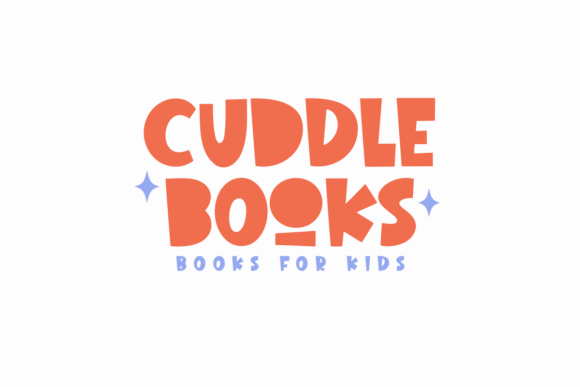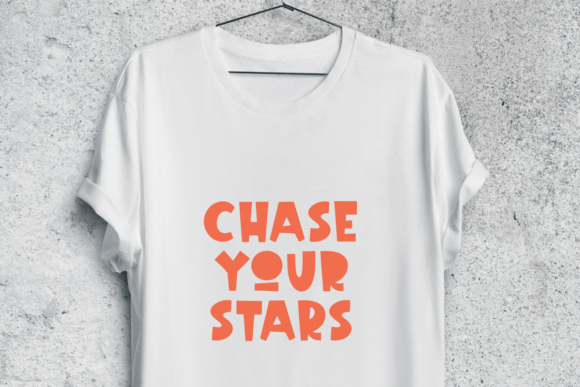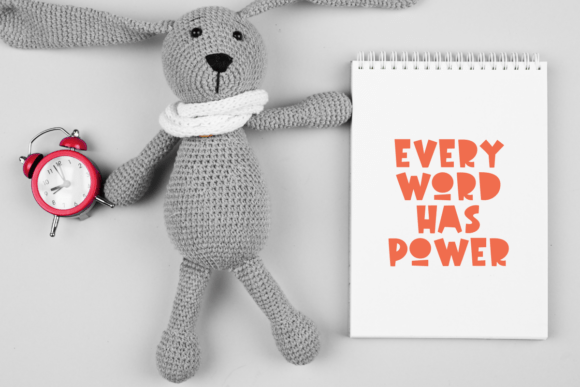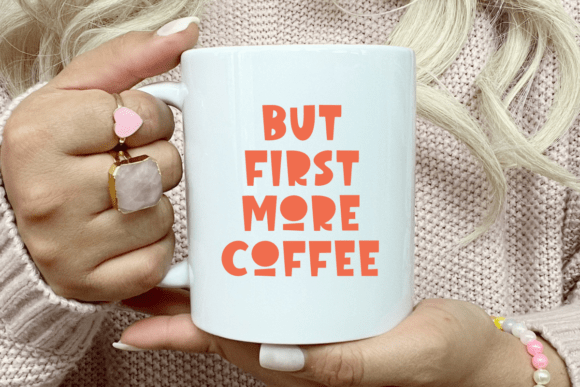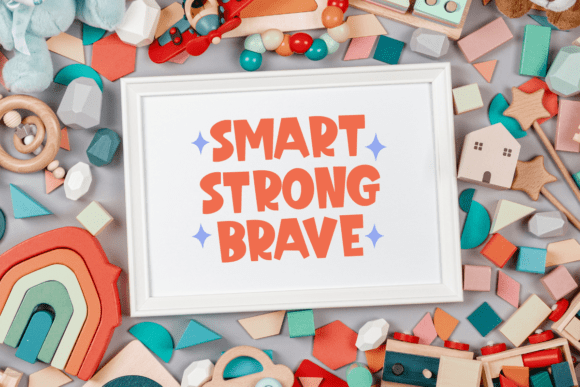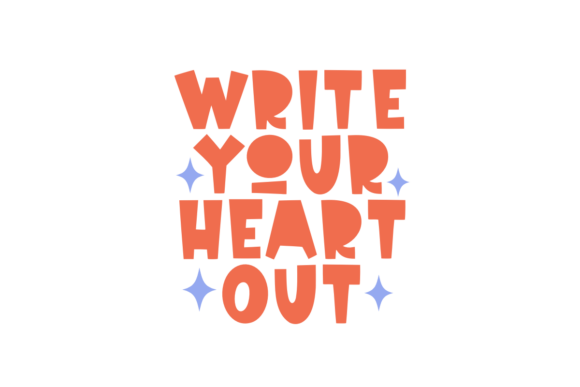
Introducing Friends School Font: The Ultimate Handmade Block Font for Creative Projects
Are you a designer, crafter, or DIY enthusiast looking for a unique and versatile font to elevate your creative projects? Look no further than Friends School Font, an extraordinarily distinct handmade block font that is sure to add a touch of quirkiness and personality to your designs. In this article, we’ll explore the features and benefits of Friends School Font, and how it can be used to amplify the charm of a wide range of creative projects.
What is Friends School Font?
Friends School Font is a handmade block font that is characterized by its distinctive and playful design. The font features a unique blend of uppercase and lowercase letters that harmoniously work together to create a visually appealing and eye-catching effect. The font’s quirkiness and versatility make it perfect for a wide range of creative projects, from statement tee-shirts and captivating headlines to custom tote bags and illustrations.
Key Features of Friends School Font
- Handmade block font: Friends School Font is a unique, handmade block font that adds a personal touch to any design.
- Quirky and versatile: The font’s quirkiness and versatility make it perfect for a wide range of creative projects.
- Uppercase and lowercase letters: The font features a unique blend of uppercase and lowercase letters that work harmoniously together.
- Perfect for designers and crafters: Friends School Font is ideal for designers, crafters, and DIY enthusiasts looking for a unique and versatile font.
Creative Projects with Friends School Font
Friends School Font is perfect for a wide range of creative projects, including:
- Statement tee-shirts: Add a touch of personality to your tee-shirts with Friends School Font.
- Captivating headlines: Use Friends School Font to create eye-catching headlines that grab attention.
- Custom tote bags: Add a personal touch to your tote bags with Friends School Font.
- Illustrations and posters: Use Friends School Font to add a touch of quirkiness to your illustrations and posters.
- Book covers and greeting cards: Friends School Font is perfect for adding a touch of personality to book covers and greeting cards.
- Home decor: Use Friends School Font to create eye-catching wall adornments and other home decor items.
- Coffee mugs and merchandise: Carry your brand’s style through coffee mugs and other merchandise with Friends School Font.
Why Choose Friends School Font?
- Unique and distinctive: Friends School Font is a unique and distinctive font that will set your designs apart from the crowd.
- Versatile: The font is versatile and can be used for a wide range of creative projects.
In conclusion, Friends School Font is a unique and versatile handmade block font that is perfect for designers, crafters, and DIY enthusiasts looking for a touch of quirkiness and personality in their creative projects. With its distinctive design and harmonious blend of uppercase and lowercase letters, Friends School Font is sure to amplify the charm of any design. Whether you’re creating statement tee-shirts, captivating headlines, custom tote bags, or illustrations, Friends School Font is the perfect choice. So why wait? Download Friends School Font today and bring your creative projects to life with personality!